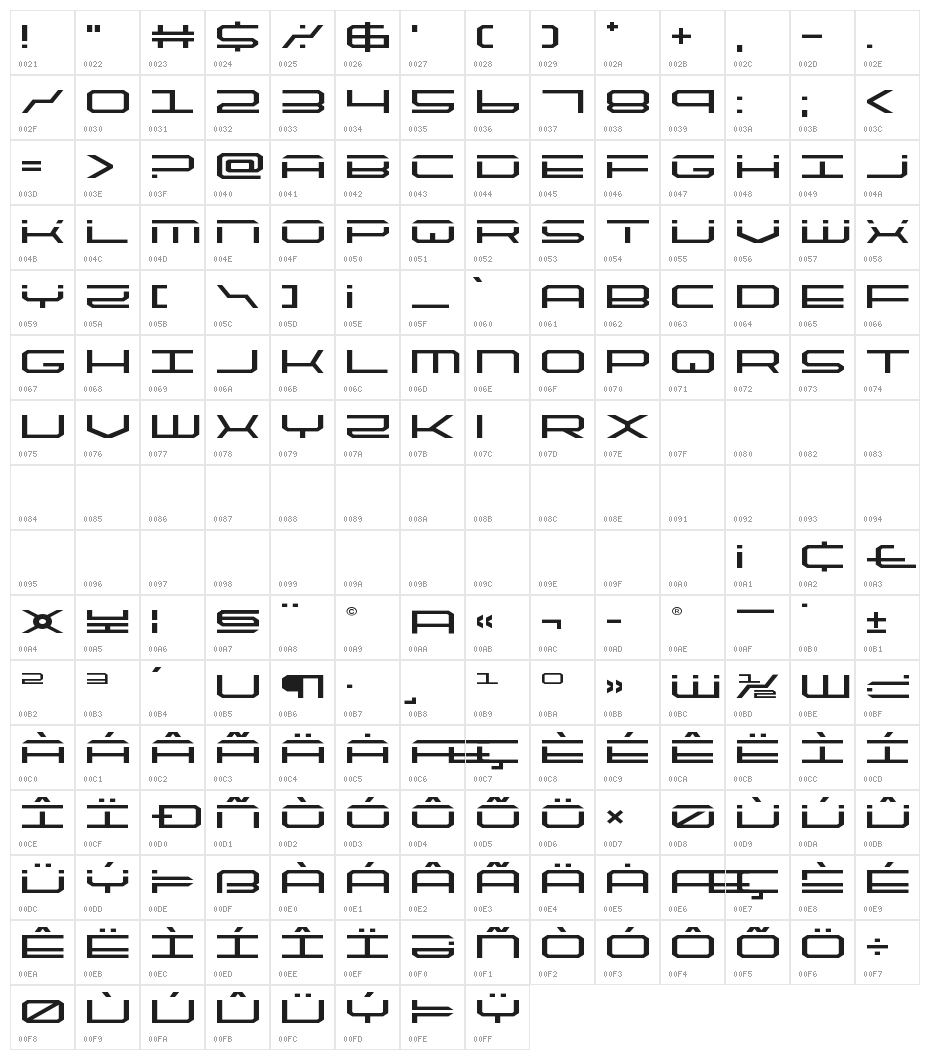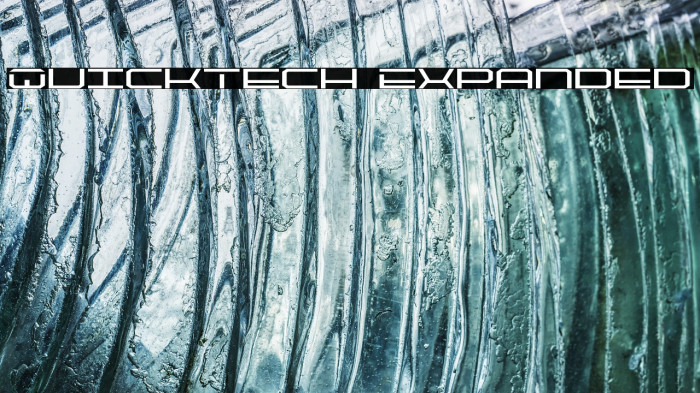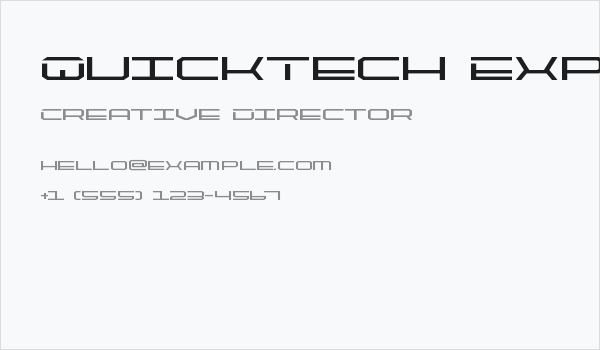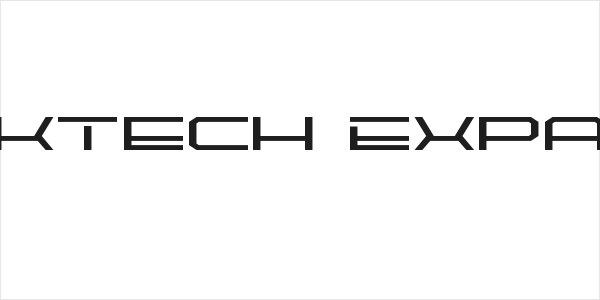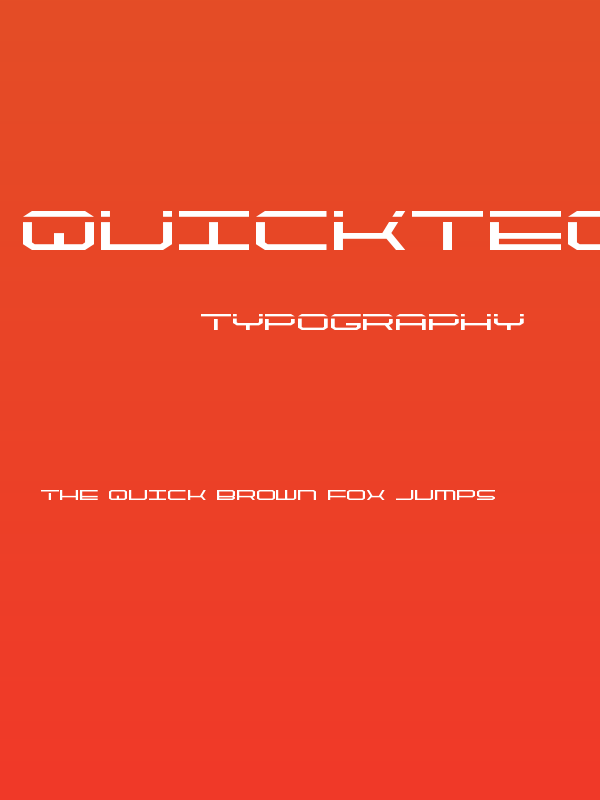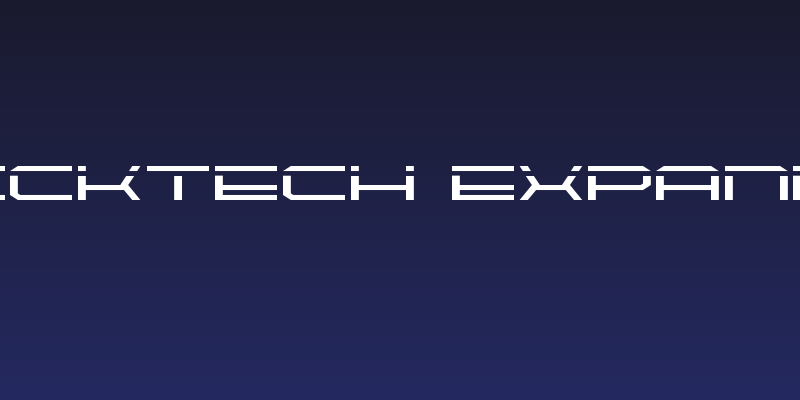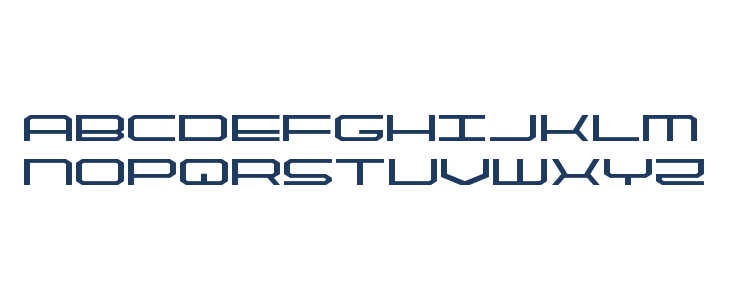
QuickTech Expanded Font
QuickTech Expanded Description
This font features a futuristic and geometric design, characterized by its expanded and angular letterforms. The characters are constructed with clean, straight lines and sharp edges, giving it a modern and tech-inspired appearance. The uppercase and lowercase letters maintain a consistent style, with a uniform height and width that enhances readability. The numerals and special characters follow the same design principles, ensuring a cohesive look across all glyphs. This font's unique style makes it suitable for projects that require a contemporary and innovative touch.
| Proposed Projects | Ideal for tech branding, sci-fi posters, digital interfaces, and modern advertising. |